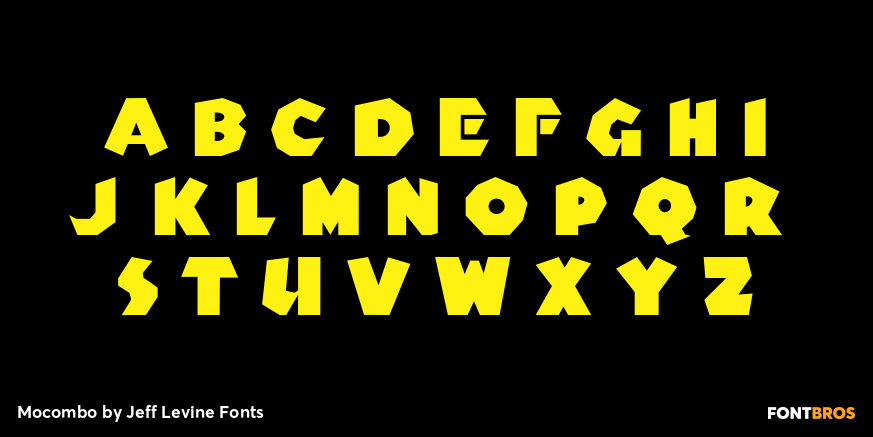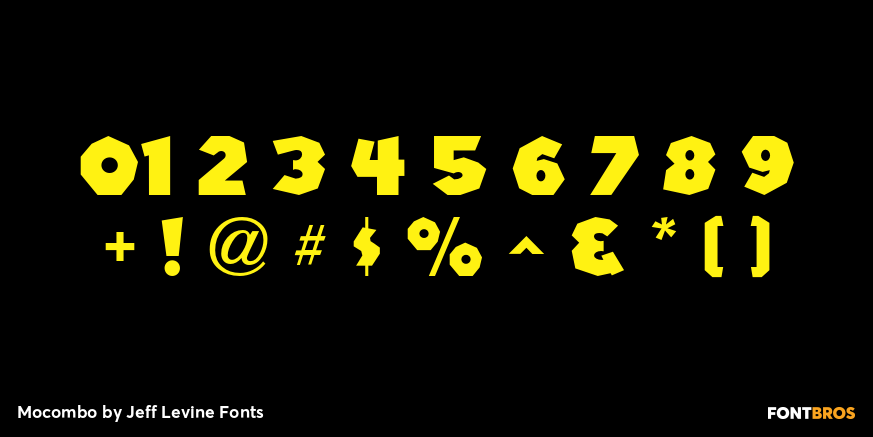
Mocombo
Mocombo JNL is a slightly modified version of one of the numerous alphabets created by the late Alf R. Becker for Signs of the Times Magazine during the period of the 1930s through the 1950s. Tod Swormstedt of ST Media – who is also the curator of the American Sign Museum in Cincinnati, Ohio – supplied Jeff Levine a wealth of source material from which this font is derived.
The angular style of this typeface was originally referred to as "German poster Lettering" by Becker, but it can represent many styles from 1940s night clubs to African safaris and just about anything in-between.
Mocombo JNL Oblique
Mocombo JNL Regular